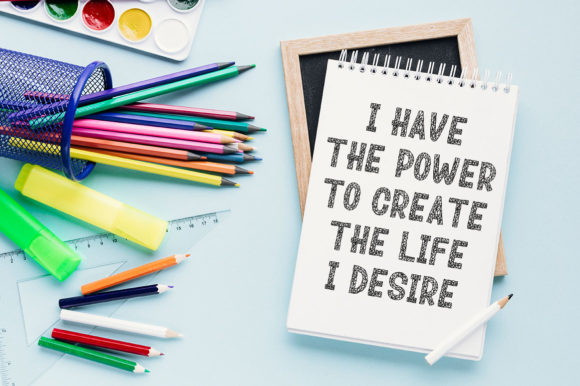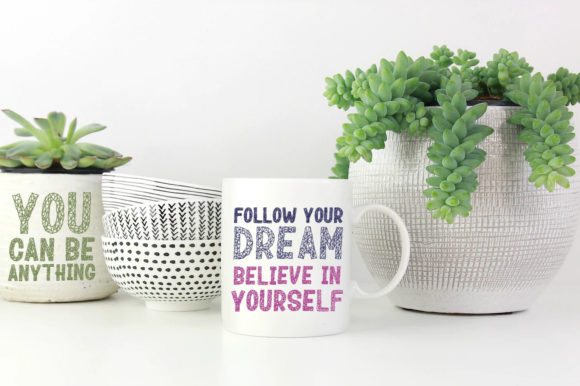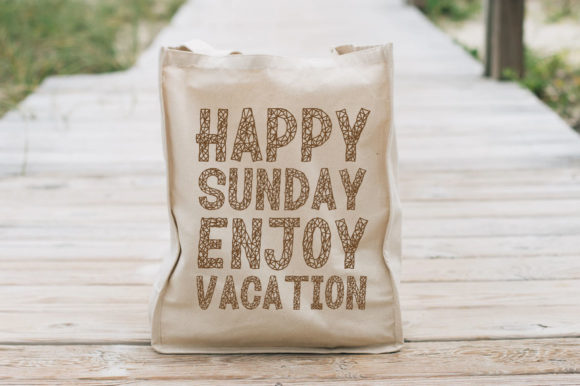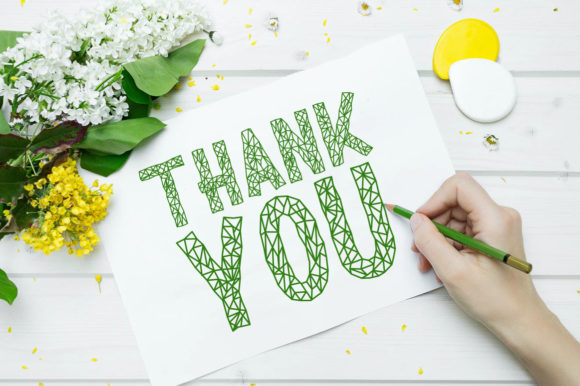
Introducing Gemora Scribble Font: The Ultimate Display Font for Creative Projects
Are you a designer, crafter, or DIY enthusiast looking for a font that can add a touch of personality to your creative projects? Look no further than Gemora Scribble Font! This adorable display font is designed to bring a friendly and approachable feel to any design, making it perfect for a wide range of applications, from social media graphics to handmade crafts.
What Makes Gemora Scribble Font So Special?
Gemora Scribble is a cute and casual display font that boasts an incredibly friendly feel. Its unique, hand-scribbled aesthetic gives it a personal and approachable vibe that’s sure to capture the attention of your audience. Whether you’re creating graphics for Instagram, designing calligraphy scripts for DIY projects, or working on a branding campaign, this font is sure to turn your creative ideas into true works of art.
Key Features of Gemora Scribble Font
- Cute and Casual Design: Gemora Scribble Font features a playful, hand-scribbled design that’s perfect for creating friendly and approachable graphics.
- Display Font: This font is specifically designed as a display font, making it ideal for headlines, titles, and other prominent text elements.
- Friendly Feel: The unique, scribbled aesthetic of Gemora Scribble Font gives it a warm and inviting feel that’s sure to resonate with your audience.
- Versatile: This font can be used for a wide range of applications, from social media graphics to handmade crafts, and everything in between.
Uses for Gemora Scribble Font
Gemora Scribble Font is a versatile font that can be used for a variety of creative projects, including:
- Instagram Graphics: Add a personal touch to your Instagram graphics with Gemora Scribble Font. Use it to create eye-catching headlines, captions, and quotes that will help you stand out on the platform.
- DIY Projects: Take your DIY projects to the next level with Gemora Scribble Font. Use it to create custom calligraphy scripts, signs, and other decorative elements that will add a personal touch to your handmade crafts.
- Branding and Marketing: Use Gemora Scribble Font to create unique and memorable branding elements, such as logos, business cards, and brochures.
- Stationery and Invitations: Add a touch of personality to your stationery and invitations with Gemora Scribble Font. Use it to create custom greeting cards, invitations, and other paper goods.
Tips for Using Gemora Scribble Font
To get the most out of Gemora Scribble Font, here are a few tips to keep in mind:
- Use it as a Display Font: Gemora Scribble Font is designed to be used as a display font, so use it to create headlines, titles, and other prominent text elements.
- Experiment with Colors: The friendly and approachable feel of Gemora Scribble Font makes it perfect for use with bright, bold colors. Experiment with different color combinations to find the one that works best for your project.
- Mix and Match with Other Fonts: Gemora Scribble Font pairs well with a variety of other fonts, so don’t be afraid to mix and match it with other fonts to create a unique and interesting look.
| Font Name | Gemora Scribble Font |
| Author | Kotak Kuning Studio |
Gemora Scribble Font is a unique and versatile display font that’s perfect for designers, crafters, and DIY enthusiasts. Its cute and casual design, friendly feel, and wide range of uses make it an ideal choice for creative projects of all kinds. Whether you’re looking to add a personal touch to your Instagram graphics, create custom calligraphy scripts for DIY projects, or develop a memorable brand identity, Gemora Scribble Font is the perfect tool for the job.